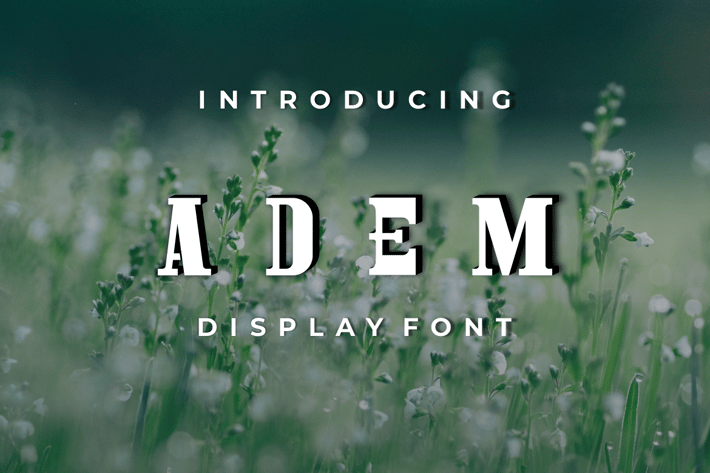
ADEM Serif Font
Introducing our new product ADEM Serif Font - Modern Font
ADEM Serif Font - Modern Font is a bold and authentic display font. The font is suitable for any branding project like logo, t-shirt printing, esport, and many more. outstanding in a wide range of contexts.